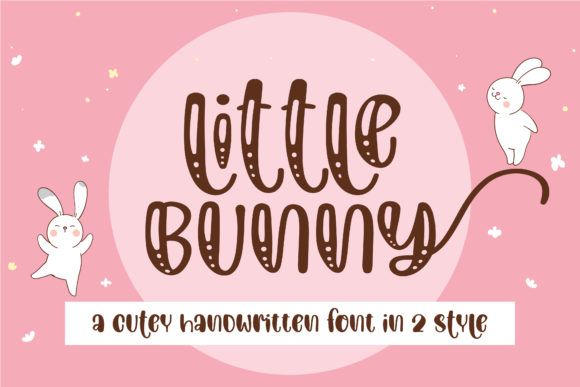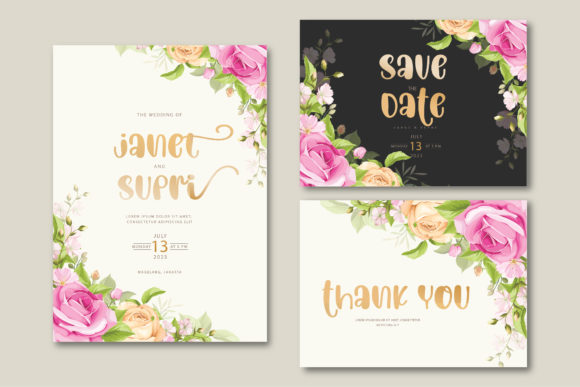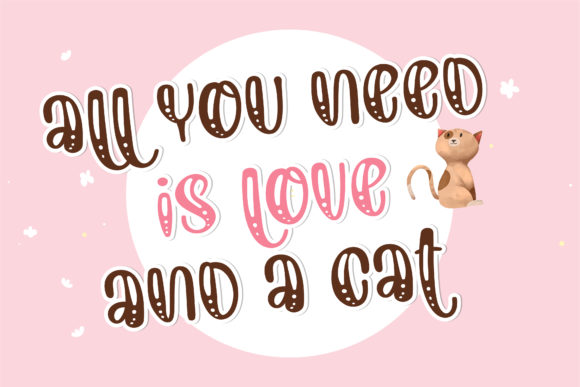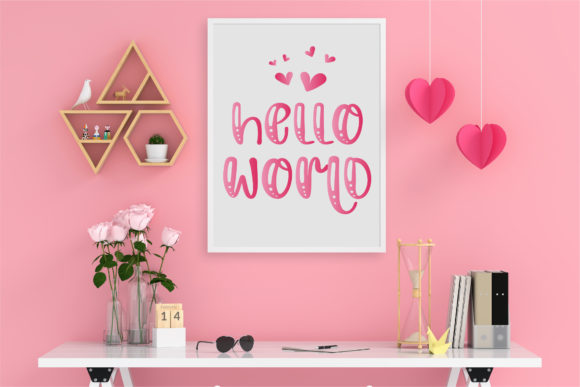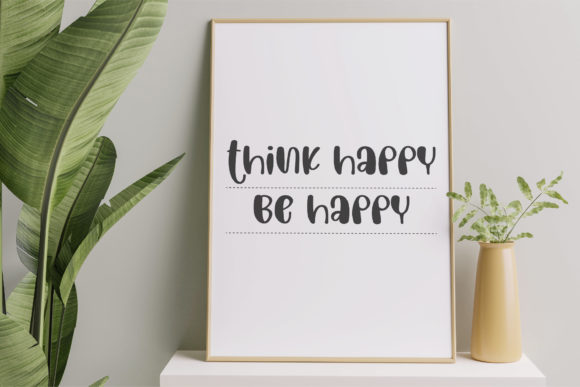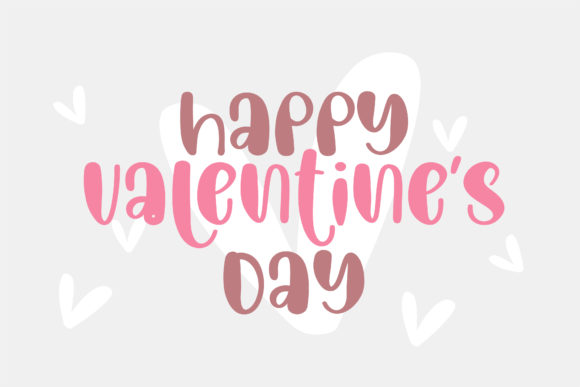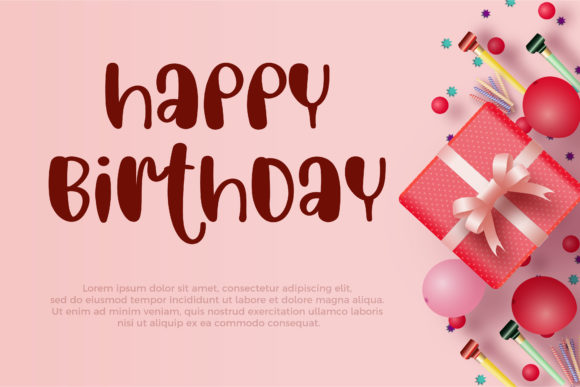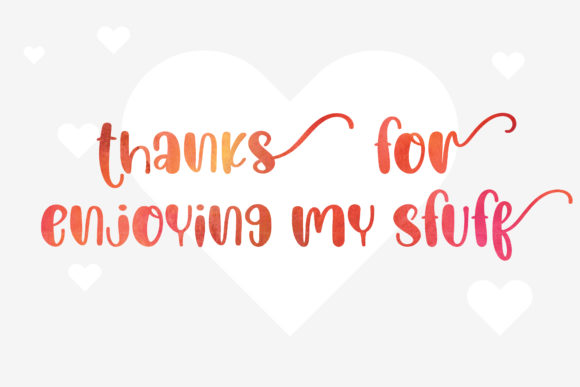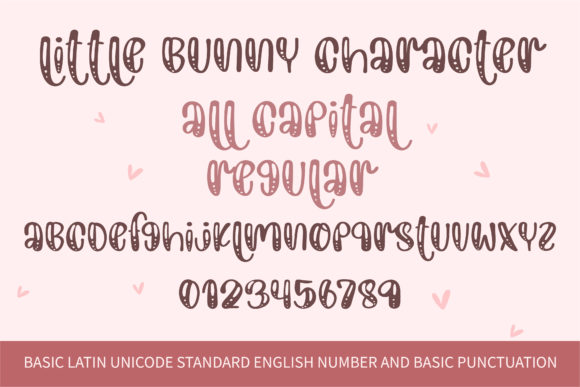
Little Bunny Font
About Little Bunny Font
Little Bunny sounds absolutely adorable! As a cute and whimsical handwritten font, it brings a playful and lighthearted touch to your designs. With its natural and unique style, Little Bunny is incredibly versatile, making it suitable for a wide range of creative projects.
The cute and whimsical nature of Little Bunny adds a sense of charm and innocence to your designs. It’s perfect for projects that require a touch of fun and creativity, such as children’s books, greeting cards, invitations, or any other design where you want to evoke a sense of playfulness. Little Bunny’s handwritten appearance adds a personal and authentic feel, giving your designs a warm and approachable vibe.
The natural and unique style of Little Bunny sets it apart and makes it stand out from other fonts. Each letter carries its own personality, creating a delightful and eye-catching visual impact. Whether you’re designing posters, packaging, logos, or social media graphics, Little Bunny brings a touch of character and whimsy to elevate your designs.
Little Bunny has been masterfully designed to become a true favorite among designers. Its carefully crafted letterforms and attention to detail ensure that it’s not just cute but also highly readable and aesthetically pleasing. The font’s versatility allows you to use it for a variety of projects, from children’s illustrations to branding and beyond. Let your creativity flourish and let Little Bunny bring each of your creative ideas to the highest level.
In summary, Little Bunny is a cute and whimsical handwritten font that brings a playful and lighthearted touch to your designs. Its natural and unique style sets it apart and makes it a standout choice for a wide range of creative projects. From children’s books to branding, Little Bunny adds charm and character to your designs, ensuring they reach the highest level of creativity and appeal. Embrace the cuteness and let Little Bunny become a favorite in your font collection.